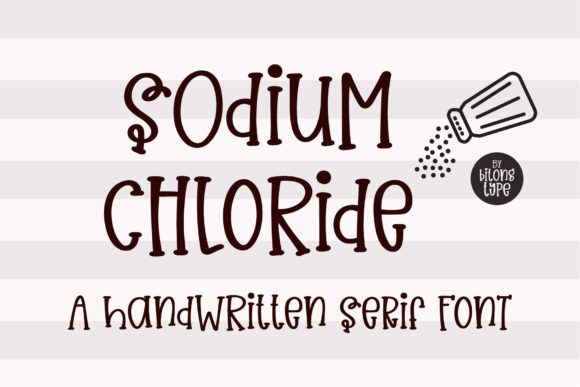
Welcome to the world of Sodium Chloride, a captivating serif font family that exudes charm and playfulness. This delightful creation by BitongType is not just a font; it's an expression of joy, crafted to infuse your designs with a touch of whimsy.
Immerse yourself in the world of Sodium Chloride, where letters dance with personality. Its charming curves and playful strokes bring life to any project, making it the perfect choice for cartoon-inspired designs, children's games, quirky quotes, and eye-catching titles. Whether you're a designer, an artist, or simply someone who loves to add a touch of fun to their creations, Sodium Chloride is the font for you.
With its versatility, Sodium Chloride effortlessly adapts to a wide range of projects. Create book covers that capture the imagination, posters that pop with personality, and brand names that leave a lasting impression. Let Sodium Chloride be your creative companion, transforming your designs into works of art.